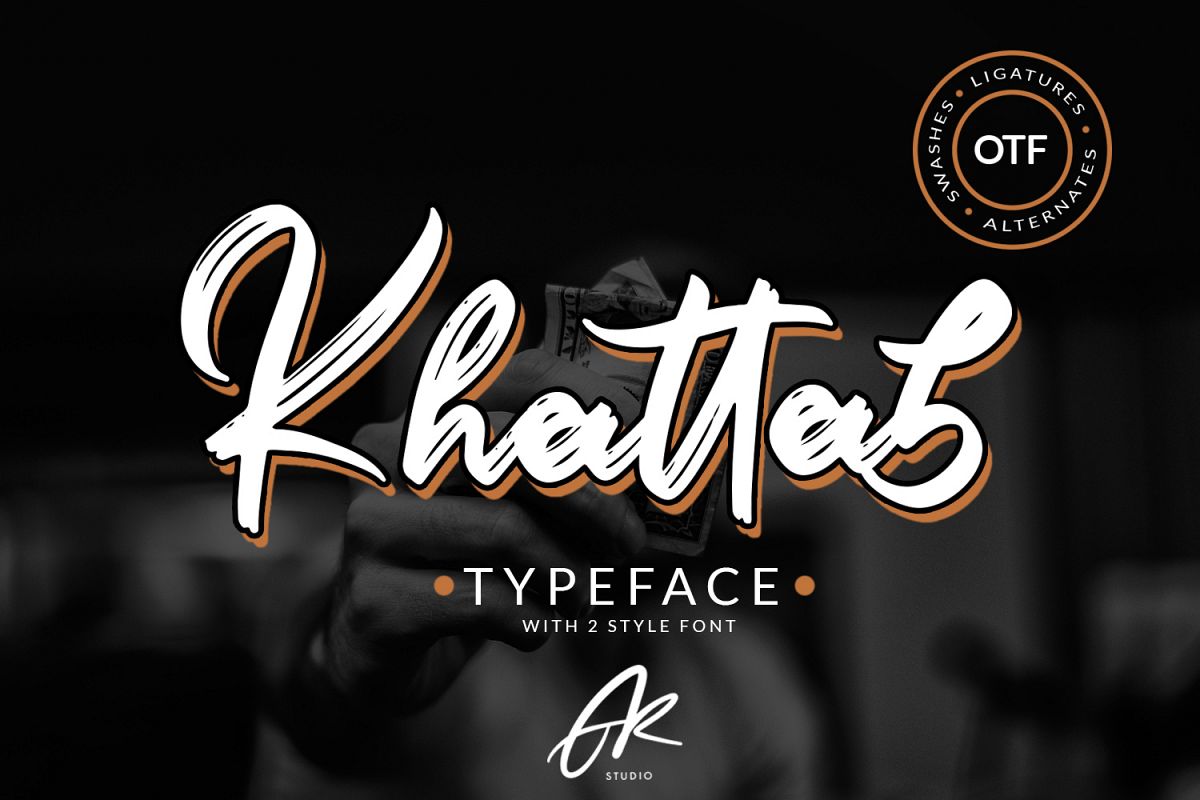
Khattab Brush Font
Khattab Brush Script Font is a font with distinctive handwritten characters perfect for branding projects, logos, wedding designs, media posts, advertisements, product packaging, product designs, labels, photography, watermarks, invitations, stationery, and any project who need handwritten dishes.Features :